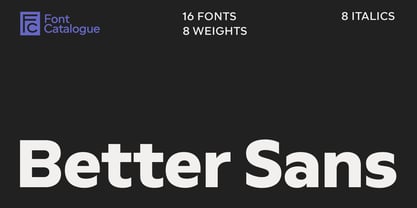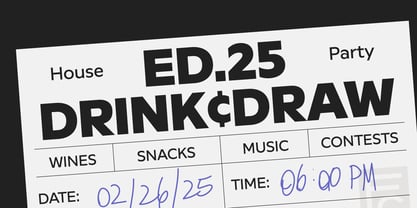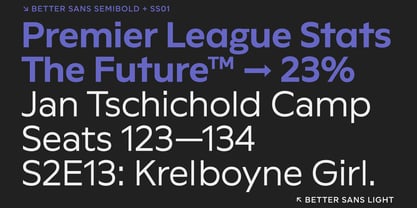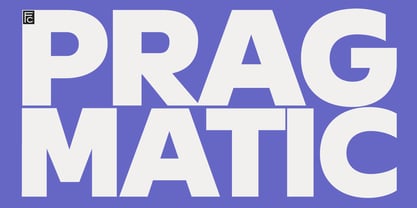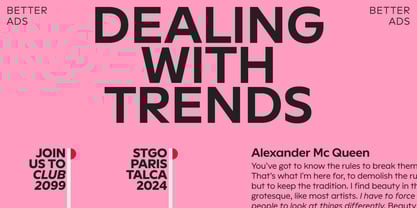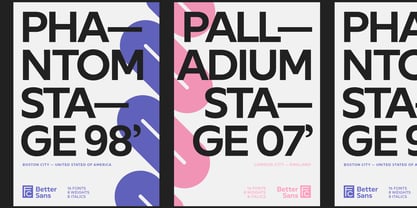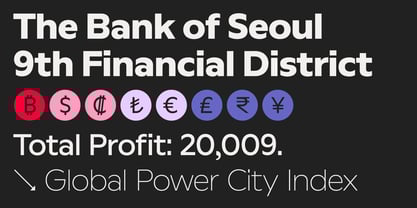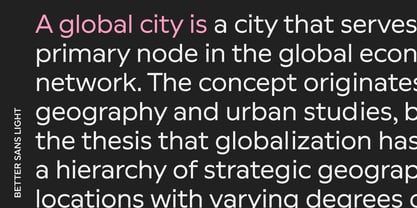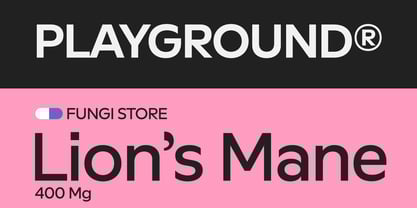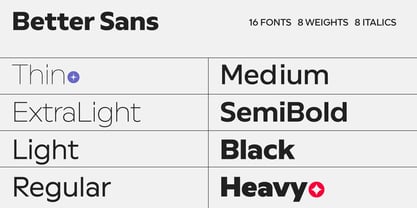
Better Sans
Better Sans Font Family was designed by Luciano Vergara, Jorge Cisterna, Daniel Hernández, Felipe Sanzana and published by Font Catalogue. Better Sans contains 16 styles family package options.
Stability and precision with a hint of familiarity
Better Sans is like that reliable friend who always makes your designs shine. Its familiar components make it easy to work with and feel like a companion you've teamed up with repeatedly.
As a sans-serif font, Better Sans combines efficiency with a friendly, approachable feel, making it ideal for vibrant branding and engaging advertisements. It cleverly integrates geometric shapes while maintaining warmth and an appealing aesthetic, enhancing specific characters and adding a playful touch. Round, compact shapes and standout characters give words a distinctive identity.
With a perfect range of weights available, Better Sans offers versatility for branding applications, whether designing headlines for innovative apps and websites or using it in traditional formats. Its horizontal alignment provides stability against any background, making it ideal for web downloads and catchy advertising slogans.
It is an excellent choice for technology brands looking to create a lasting impression.